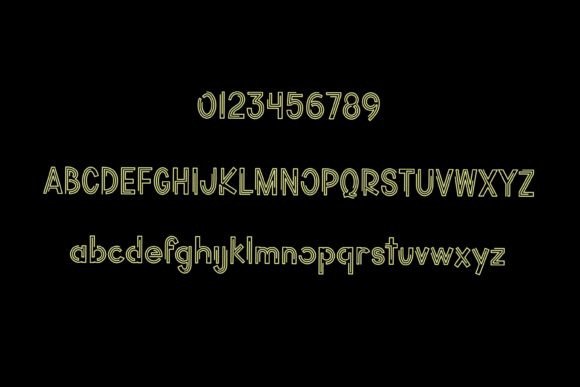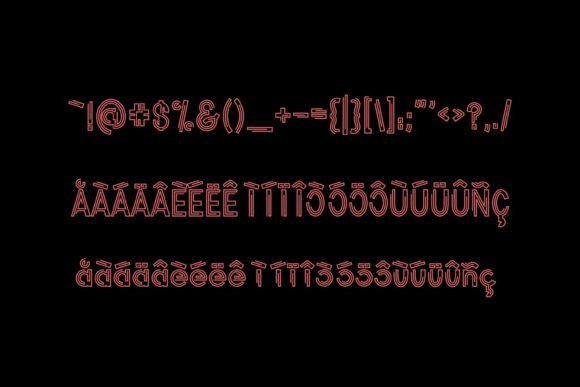
Introduction to Retro Lights Font
Retro Lights is a vibrant and dynamic font that captures the essence of neon signage with a modern twist.
Perfect for designs that need to pop with a nostalgic and vintage feel, this typeface channels the bright and bold vibes of old-school neon lights Whether for posters, signage, or digital art, Retro Lights adds an energetic and stylish glow to any project, creating an eye-catching and visually electrifying experience.
Key Features of Retro Lights Font